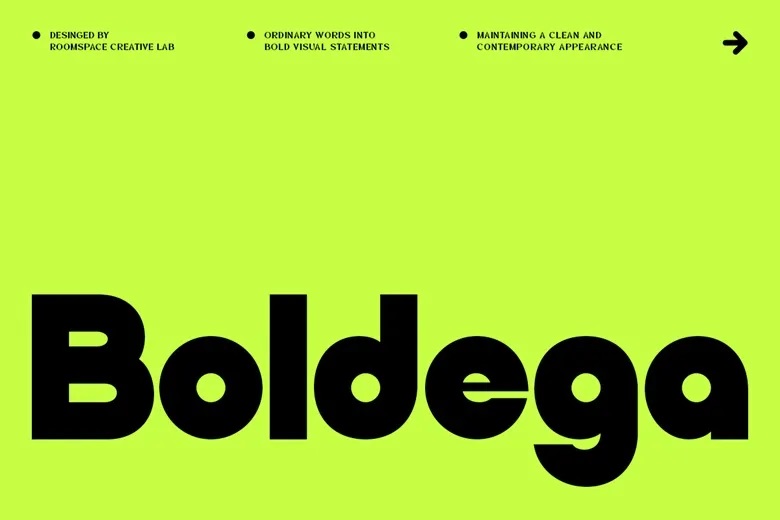
Boldega Font
Boldega is a bold geometric display font with thick shapes, rounded edges, and distinctive letter details. Its strong build and clean lines make your headlines stand out while still looking modern and polished. Boldega is designed for display and fits well in branding projects that need a bold, unique style.
Try it for logos, posters, magazines, fashion, architecture, motorsports, tech, packaging, ads, or social media when you want clear, strong visuals. The font family includes uppercase and lowercase letters, plus alternate characters and ligatures. These features help you personalize your designs and make expressive headlines, logos, and creative layouts.
Boldega Display Font